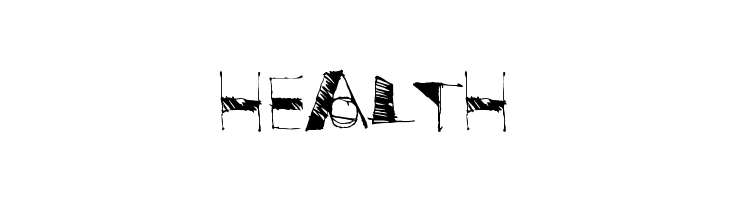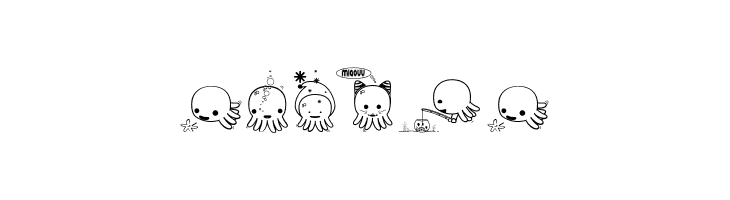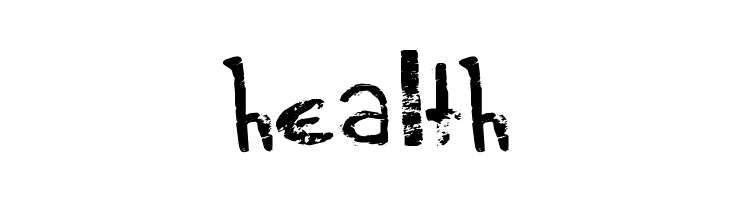
A bold, geometric font with a 3D effect and retro-futuristic style.
A bold, modern font with an inverted, geometric design.
( Fonts by Xerographer Fonts )
An artistic, sketch-like font with irregular strokes and dynamic design.
( Fonts by Maelle.K - Thomas Boucherie )
A playful collection of octopus illustrations with unique accessories and expressions.
( Fonts by RaisProject )
A bold, modern font with a unique distressed effect on each character.